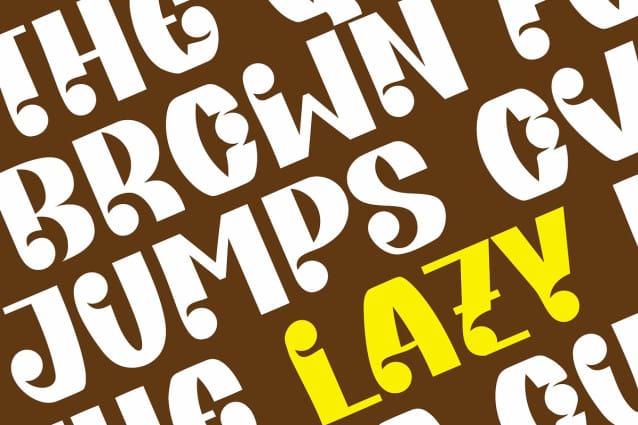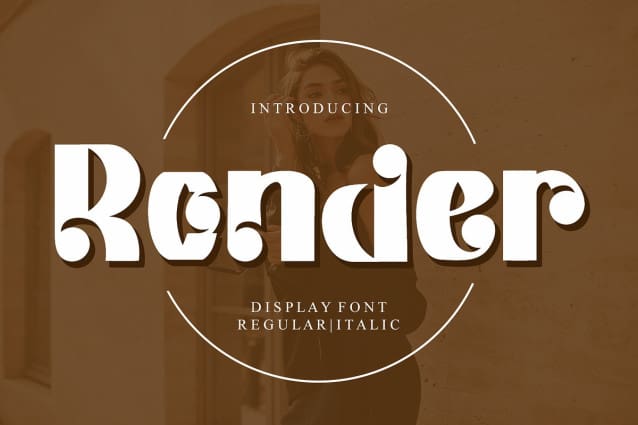
Ronder Display Font
Ronder Display Font, a standout display font designed to add an edge to your design creativity. Whether you’re crafting captivating logos, dazzling branding projects, or injecting vitality into corporate designs, Ronder adapts seamlessly, making it the go-to choice for both large-scale enterprises and small businesses. Its distinct personality brings versatility to all your design endeavors, regardless of scale. Unleash your creative potential with Ronder, the font that adds distinction to every design project.